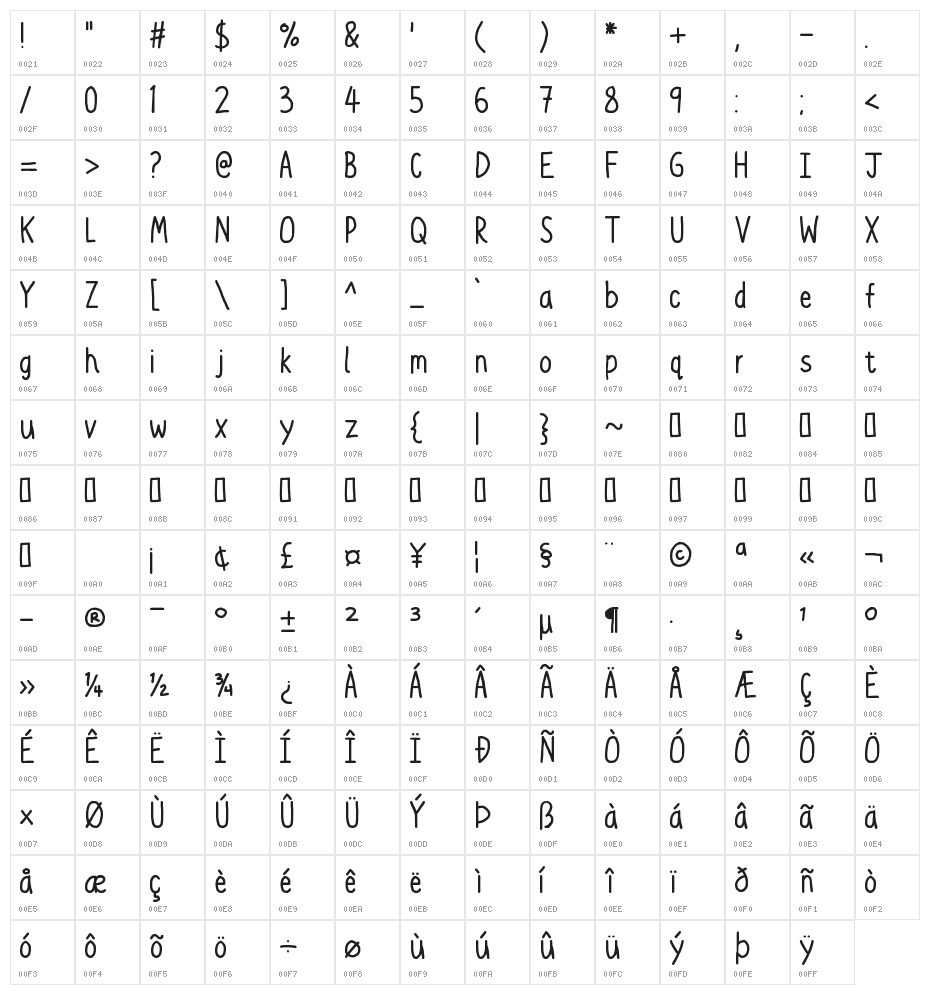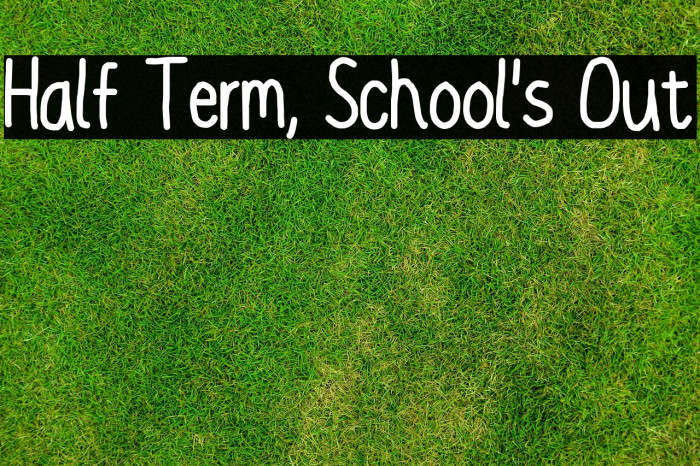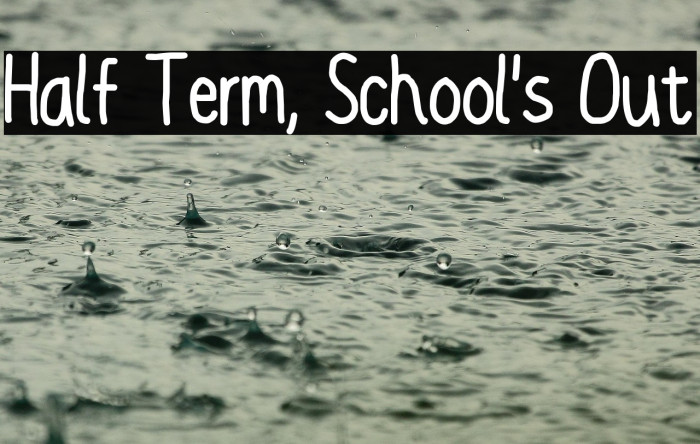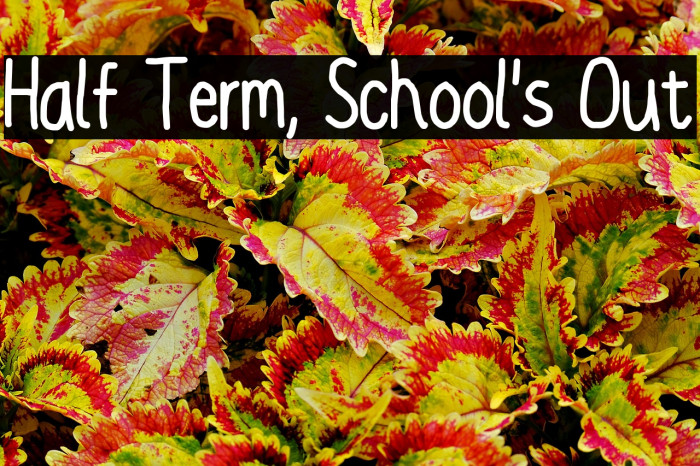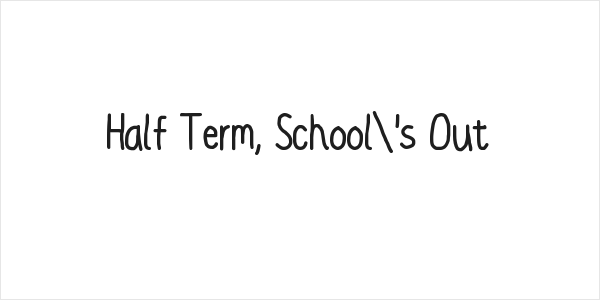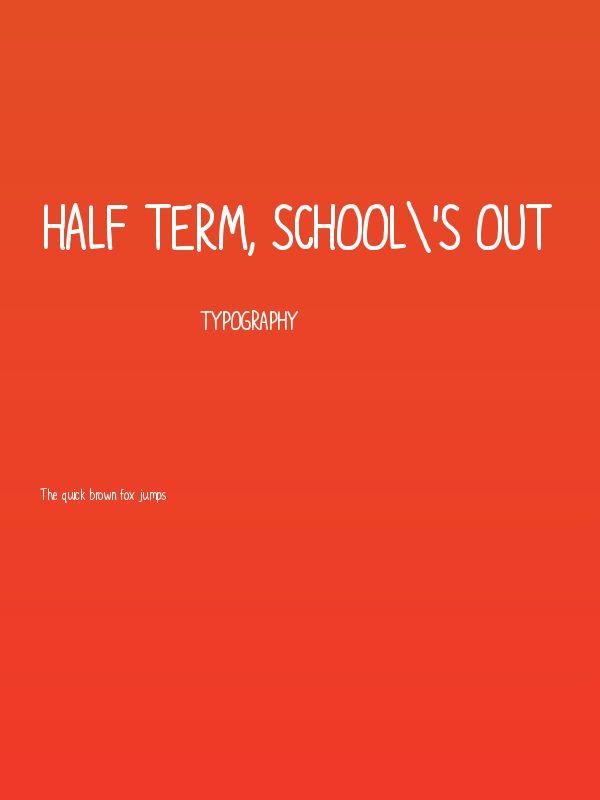
Half Term, School's Out Font
Half Term, School's Out Description
This playful and informal font features a handwritten style that exudes a sense of fun and creativity. The letters are slightly irregular, mimicking the natural flow of handwriting, which adds a personal touch to any project. The strokes are consistent in thickness, providing a uniform appearance while maintaining a casual vibe. The characters are well-spaced, ensuring readability and clarity. This font is perfect for projects that require a friendly and approachable aesthetic, such as children's books, casual invitations, or educational materials.
| Proposed Projects | Ideal for children's books, casual invitations, educational materials, and creative projects. |